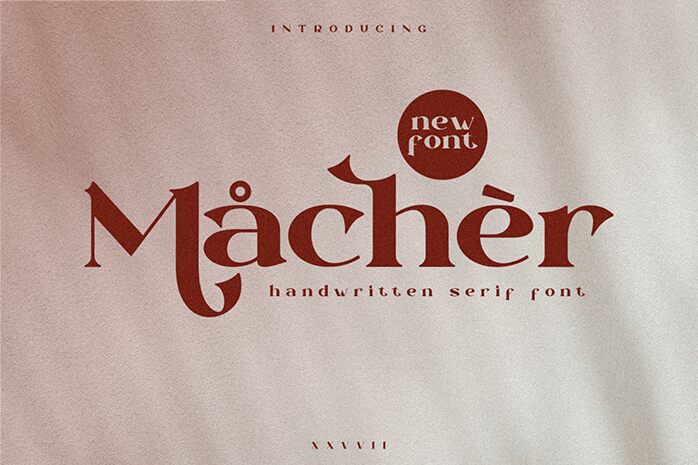
Macher font by Typegoals Labs is a confident font with expanded letterforms and bold weight. It was created to deliver messages that leave a striking impression. With the recognizable shape of letters, this free serif font offers elegance and sophistication to its audience but still maintains a readable identity.
With classic characteristics, Macher is offered for use in book covers, passages, posters, magazine headlines, newspaper titles, website headers and body text. Moreover, users can try it on logos as well as in branding or packaging products especially when royal sensations are required or encouraged.